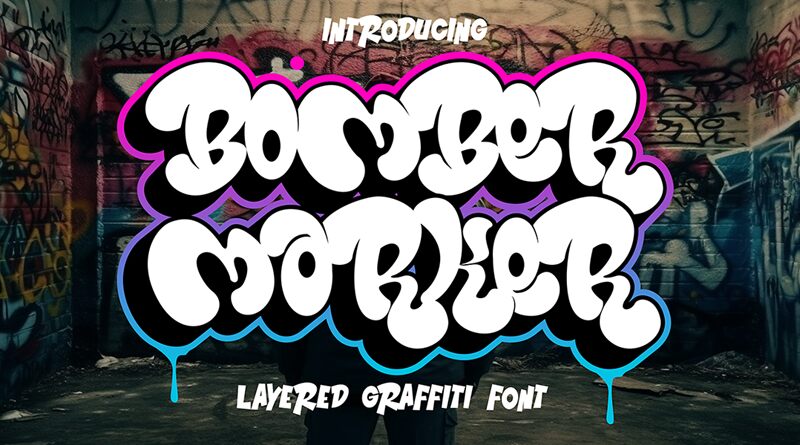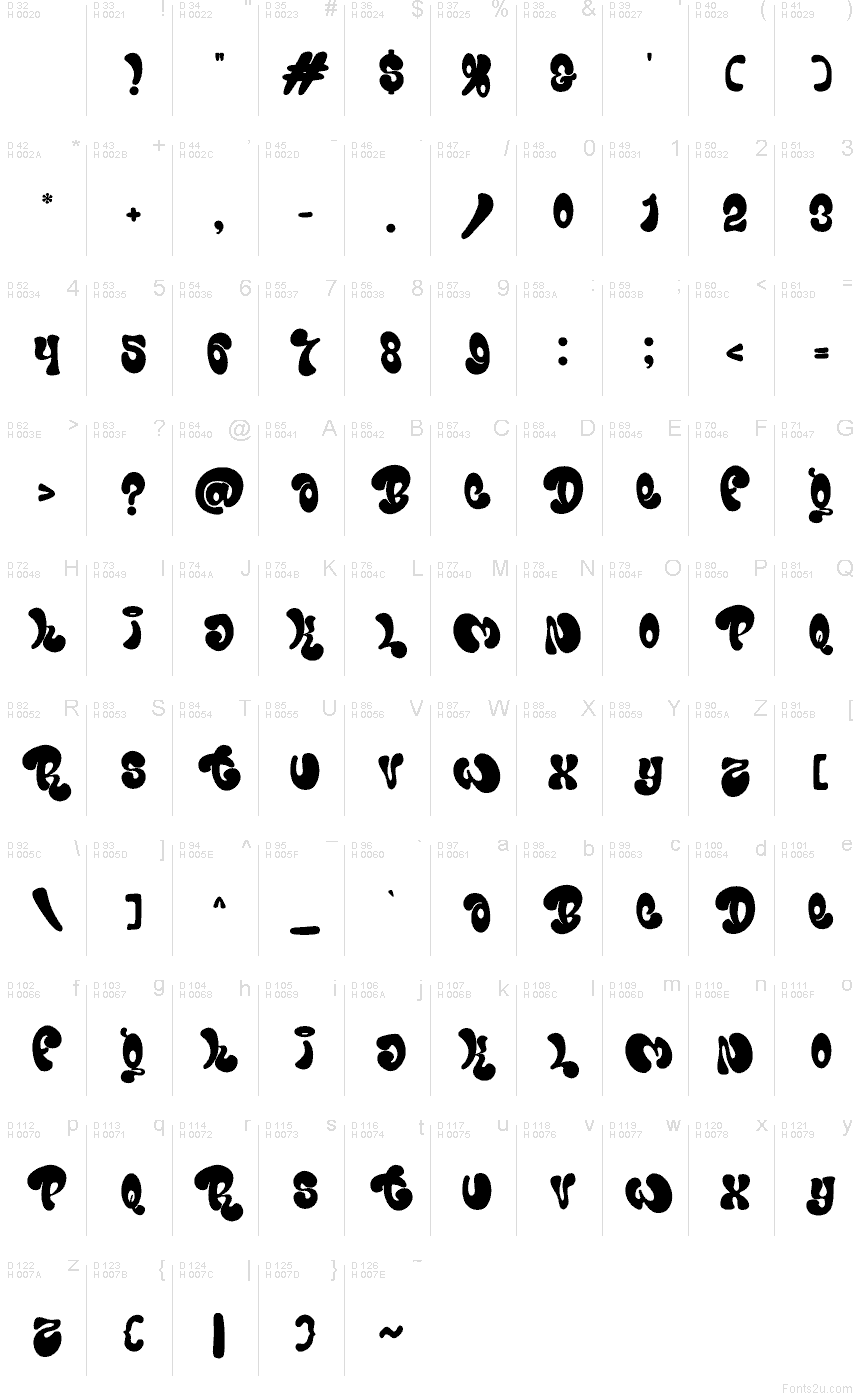
Bomber Marker
Bomber Marker font by Saepul milah of CikareotypeStudio x figureeStudio comes in loud, blobby strokes that feel like fresh paint pushed from a fat marker. The letters swell and pinch with playful bounce, leaving chunky counters and rounded joins that read like quick tags on a wall. Bomber Marker is a free graffiti font, and its inky, squishy silhouette brings instant attitude without needing extra effects.
Using Bomber Marker on streetwear logos, skateboard stickers, music or festival posters, YouTube thumbnails, sneaker-box packaging, café chalkboard-style promos, and punchy social ads gives your message that hand-hit energy. This free font also shines on short headlines where the bulbous shapes can breathe—size it up and keep tracking slightly open. Pair it with a clean condensed sans for captions to keep the chaos controlled.